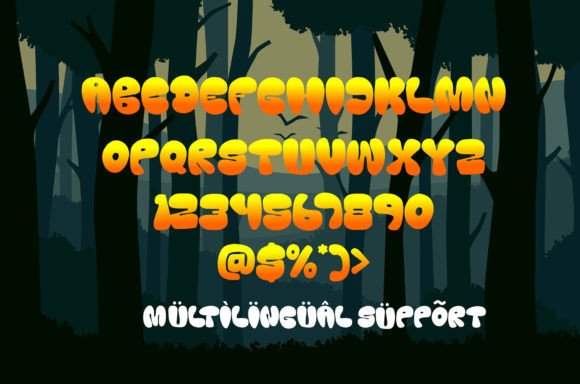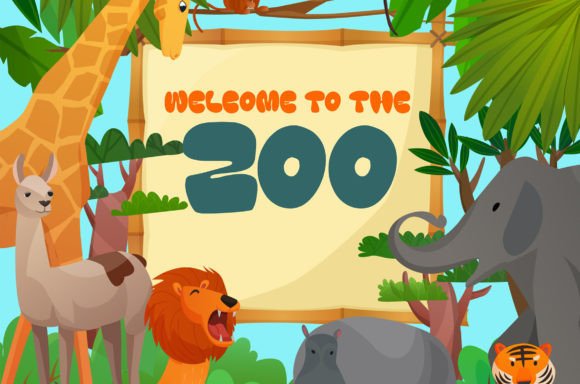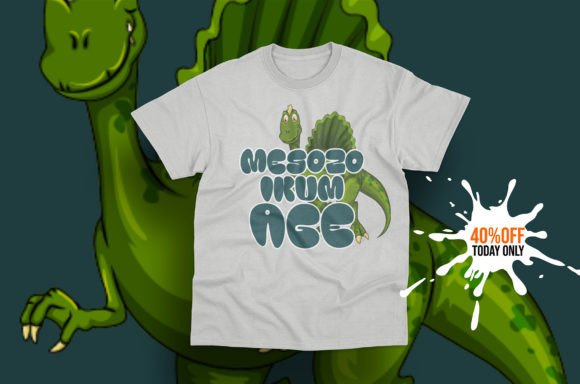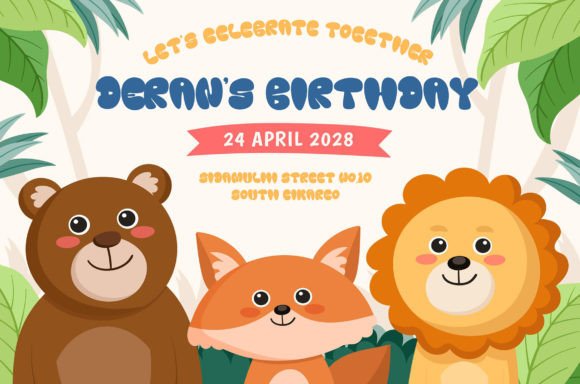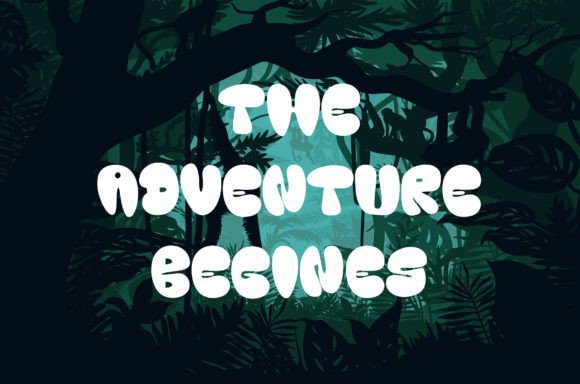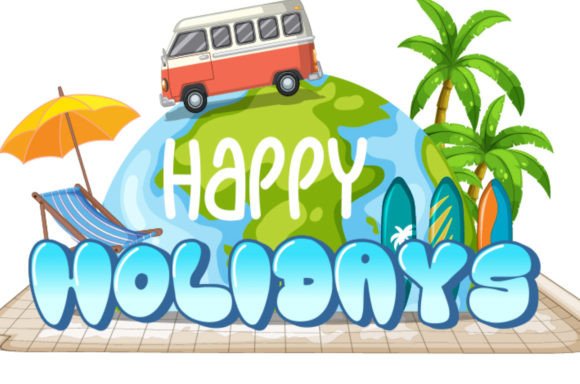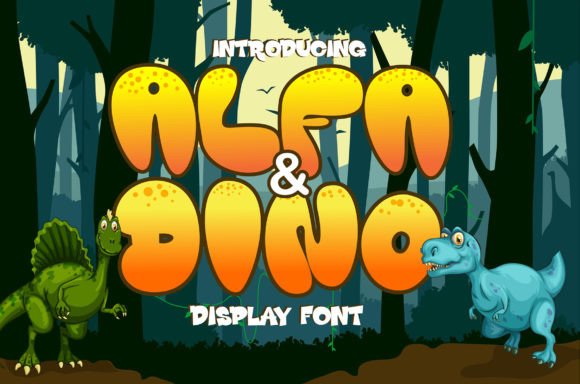
Introducing Alfa and Dino Font: The Ultimate Display Font for Fun and Playful Designs
Are you tired of using the same old fonts for your party invitations, birthday parties, and other designs? Look no further than Alfa and Dino Font, a cool, incredibly cute, and bubbly display font that’s sure to add a touch of youth and joy to any project. In this article, we’ll dive into the world of Alfa and Dino Font, exploring its features, benefits, and uses, as well as provide tips and inspiration for designers and crafters.
What is Alfa and Dino Font?
Alfa and Dino Font is a display font designed to bring a sense of fun and playfulness to your designs. Its unique and quirky style makes it perfect for projects that require a touch of whimsy and personality. Whether you’re creating party invitations, birthday party decorations, or social media graphics, Alfa and Dino Font is sure to make your designs stand out.
Key Features of Alfa and Dino Font
• Cute and Bubbly Design: Alfa and Dino Font features a unique and adorable design that’s sure to capture the attention of your audience.
• Highly Readable: Despite its playful style, Alfa and Dino Font is highly readable, making it perfect for use in a variety of designs.
• Versatile: Alfa and Dino Font can be used in a range of projects, from party invitations to social media graphics.
• Easily Customizable: Alfa and Dino Font can be easily customized to fit your brand’s style and personality.
Benefits of Using Alfa and Dino Font
So why should you use Alfa and Dino Font in your designs? Here are just a few benefits:
• Adds a Touch of Youth and Joy: Alfa and Dino Font is sure to bring a sense of fun and playfulness to your designs.
• Perfect for Party Invitations and Decorations: Alfa and Dino Font is ideal for creating party invitations, birthday party decorations, and other festive designs.
• Great for Social Media Graphics: Alfa and Dino Font can add a touch of personality and whimsy to your social media graphics.
Tips for Using Alfa and Dino Font
Here are a few tips for using Alfa and Dino Font in your designs:
• Use it for Headings and Titles: Alfa and Dino Font is perfect for use in headings and titles, where its playful style can really shine.
• Pair it with Other Fonts: Alfa and Dino Font can be paired with other fonts to create a unique and interesting design.
• Experiment with Colors and Textures: Alfa and Dino Font can be customized with different colors and textures to fit your brand’s style and personality.
Here are a few ideas for using Alfa and Dino Font in your designs:
• Party Invitations: Use Alfa and Dino Font to create fun and playful party invitations that set the tone for a festive celebration.
• Birthday Party Decorations: Alfa and Dino Font can be used to create colorful and whimsical birthday party decorations, such as banners and garlands.
• Social Media Graphics: Use Alfa and Dino Font to add a touch of personality and whimsy to your social media graphics, such as Instagram posts and Facebook updates.
• Crafting Projects: Alfa and Dino Font can be used in a range of crafting projects, such as card making, scrapbooking, and DIY decorations.
Alfa and Dino Font is a fun and playful display font that’s perfect for designers and crafters looking to add a touch of youth and joy to their designs. With its cute and bubbly design, high readability, and versatility, Alfa and Dino Font is sure to become a favorite in your design toolkit. So why not give it a try and see how it can bring a smile to your audience’s faces?